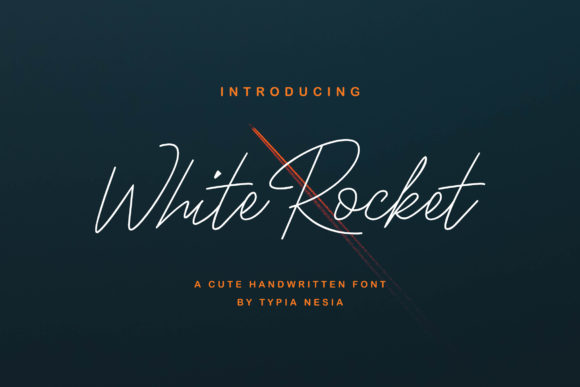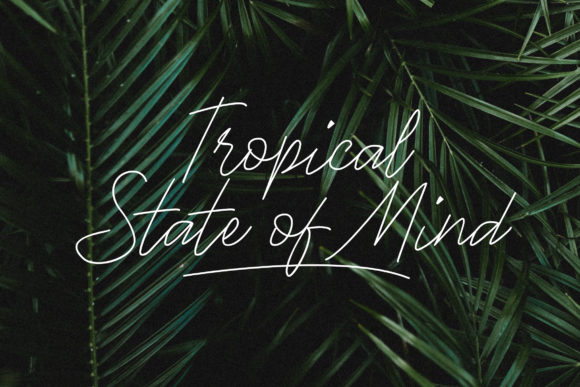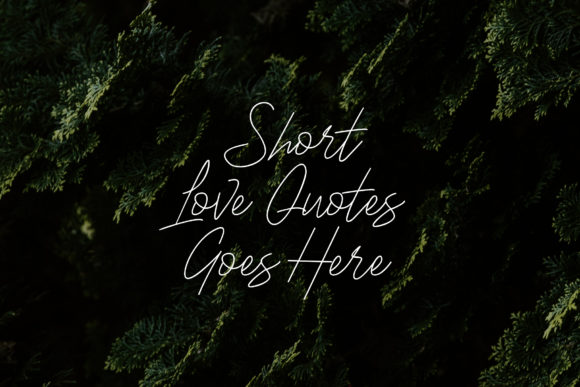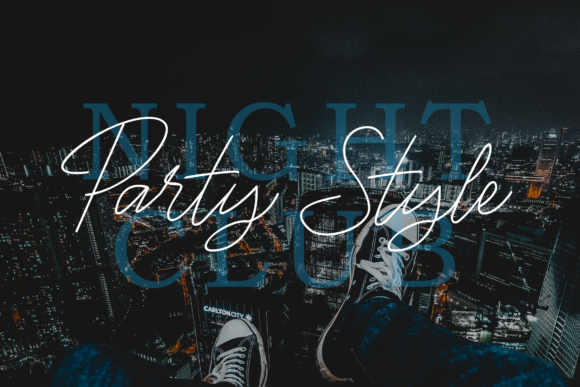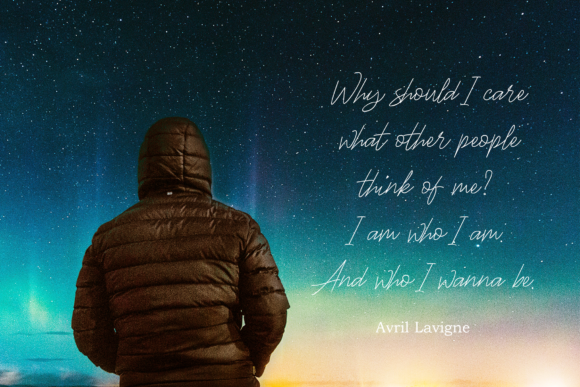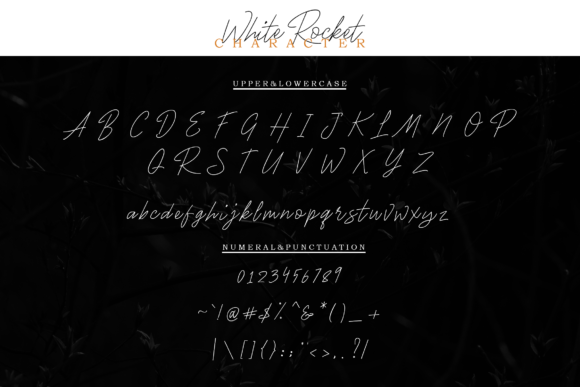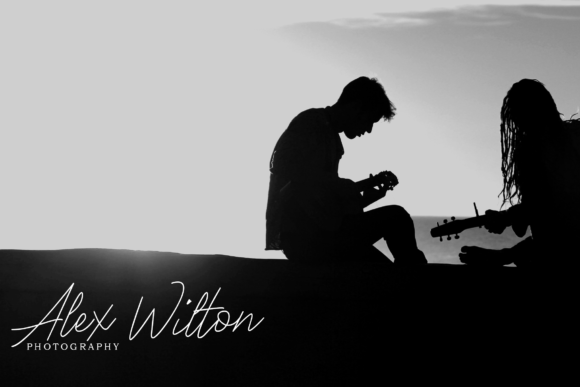
White Rocket Font
About White Rocket Font
White Rocket is an amazingly modern handwritten font with a charming style. It will add a unique feel to any design project.